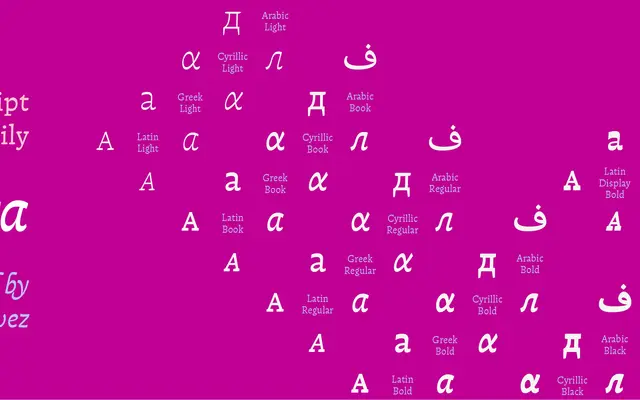
Otta
Pampatype · Francisco Gálvez Pizarro · 2015
A large, hand-drawn humanist serif by Francisco Gálvez Pizarro, designed for multi-script book work across Latin, Cyrillic and Greek.
Drawn with a calligraphic rhythm and an organic horizontal contrast informed by Arabic and Greek scribal traditions, Otta was created specifically to set Gálvez Pizarro's own typography book 'Hacer y Componer', requiring harmonious composition across multiple scripts on a single page. The family spans 28 styles across text and display optical sizes, with a PanEuro edition extending coverage to complete Cyrillic, polytonic and archaic Greek, and Coptic. It won at the Modern Cyrillic contest in 2019, and its character sets run to nearly 5,000 glyphs per font in the PE upright cuts.
Otta synthesises calligraphic and typographic forms with an organic, hand-drawn quality and humanist construction. Its horizontal contrast draws on Arabic and Greek scribal traditions, placing it firmly in the humanist serif category.